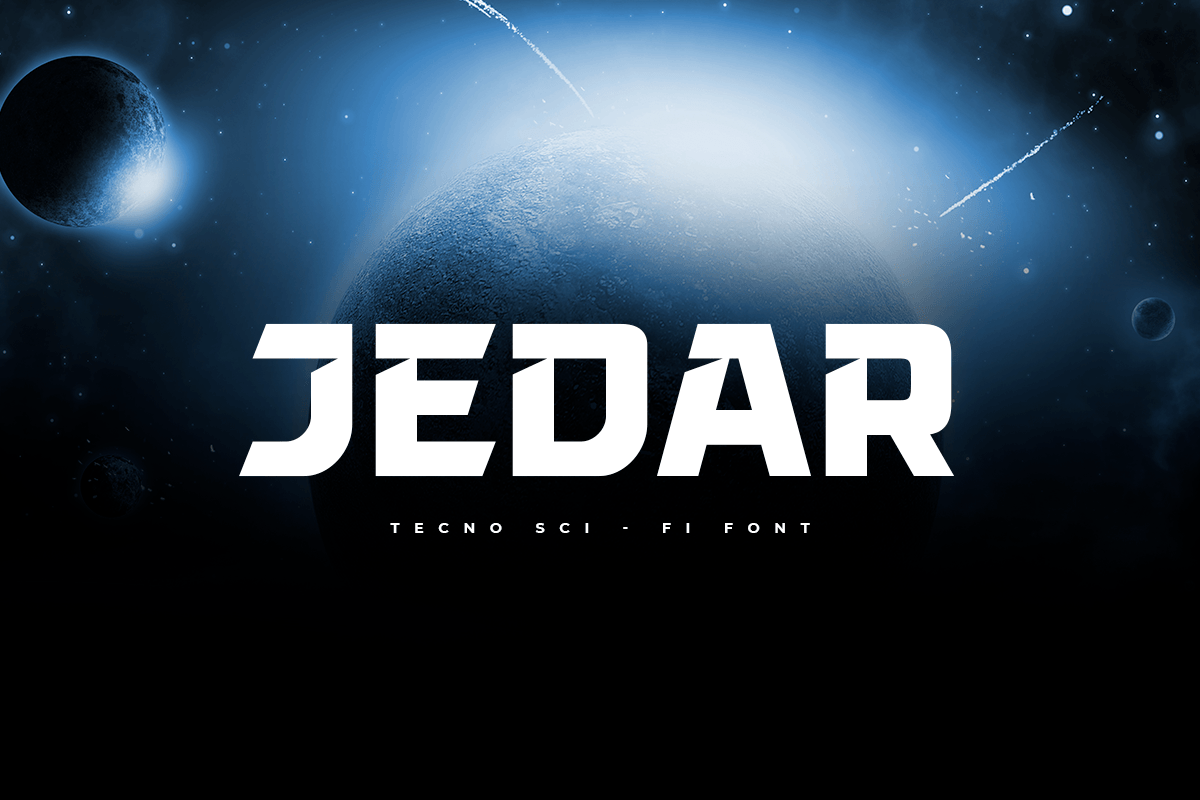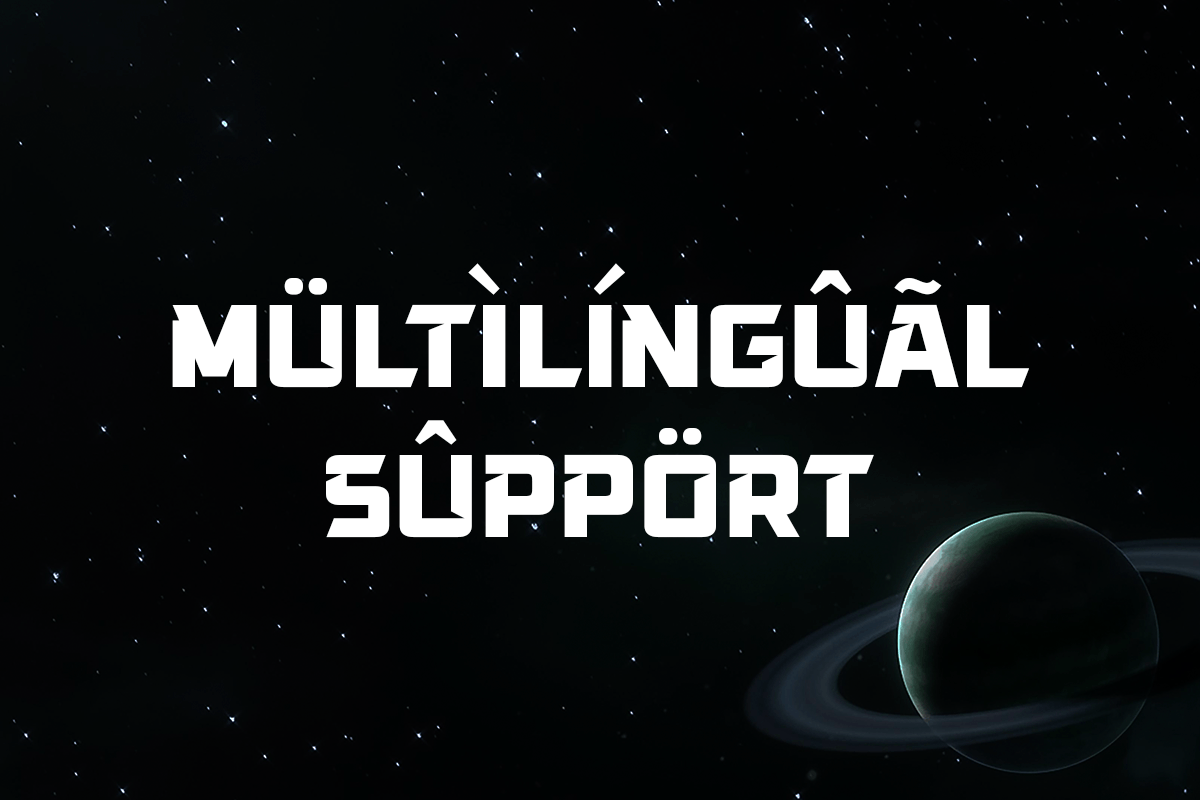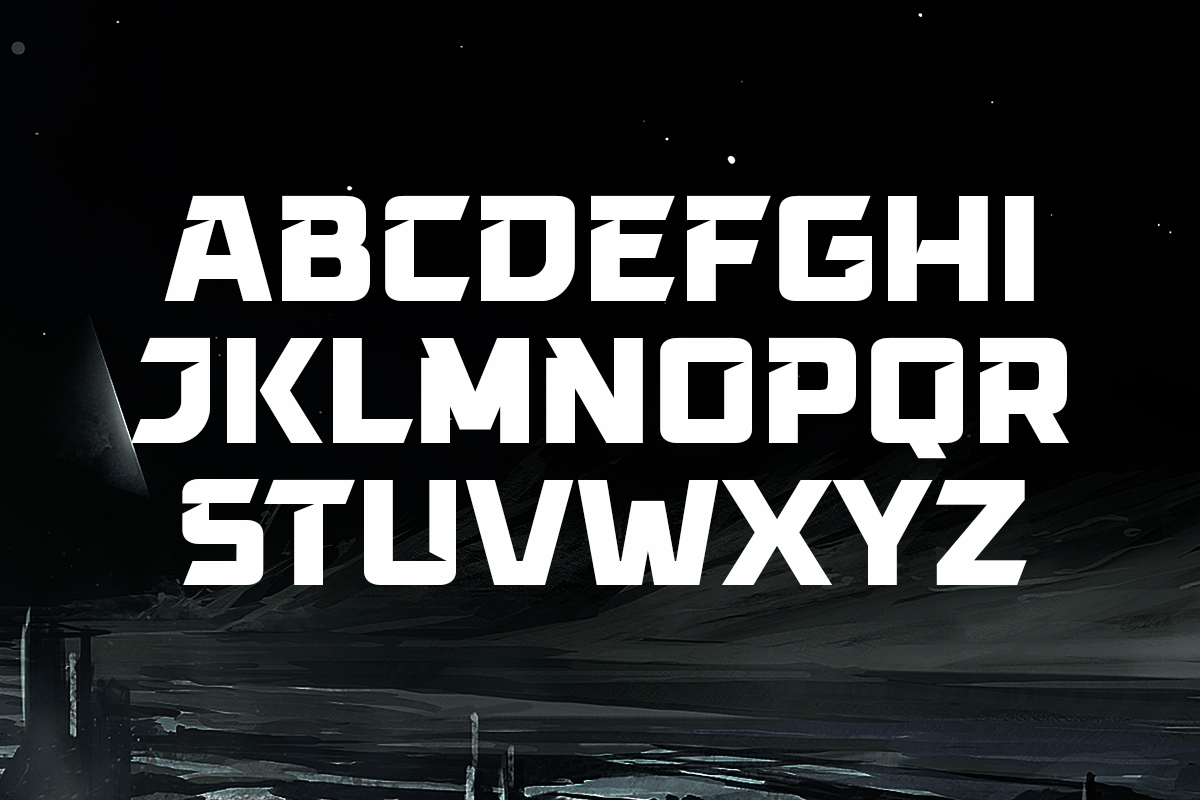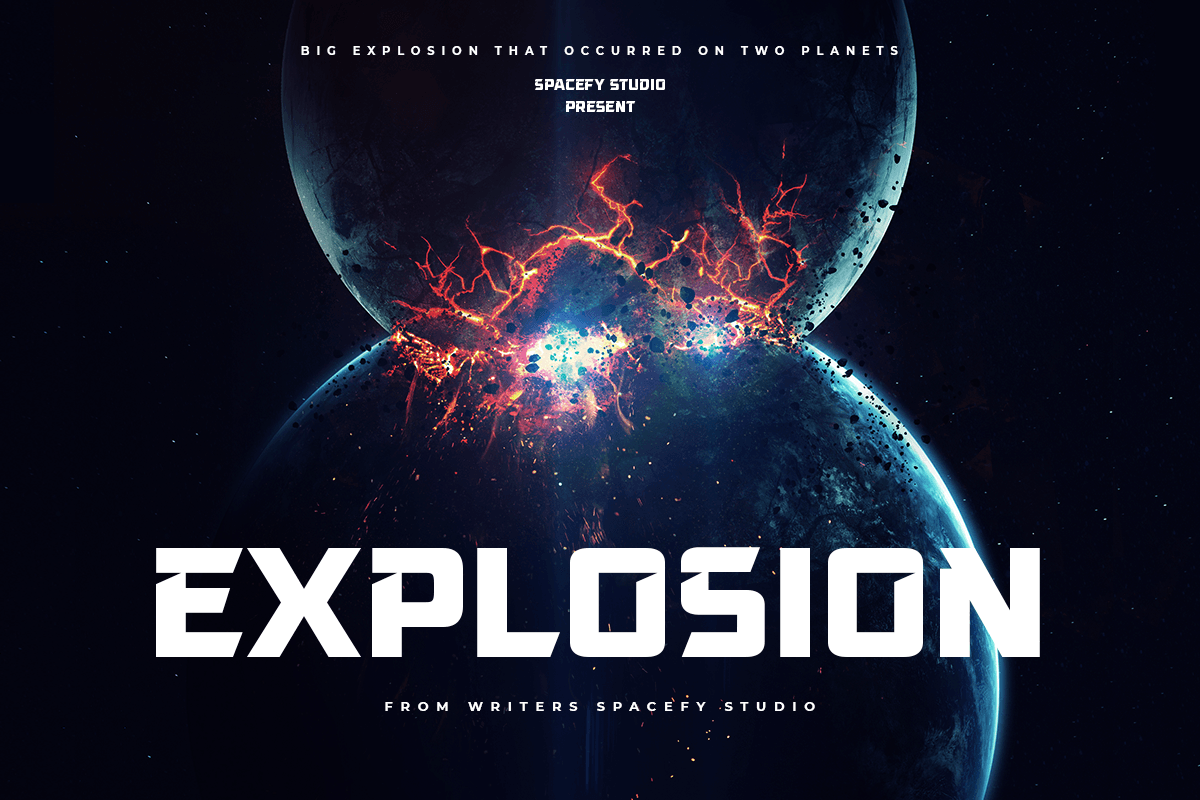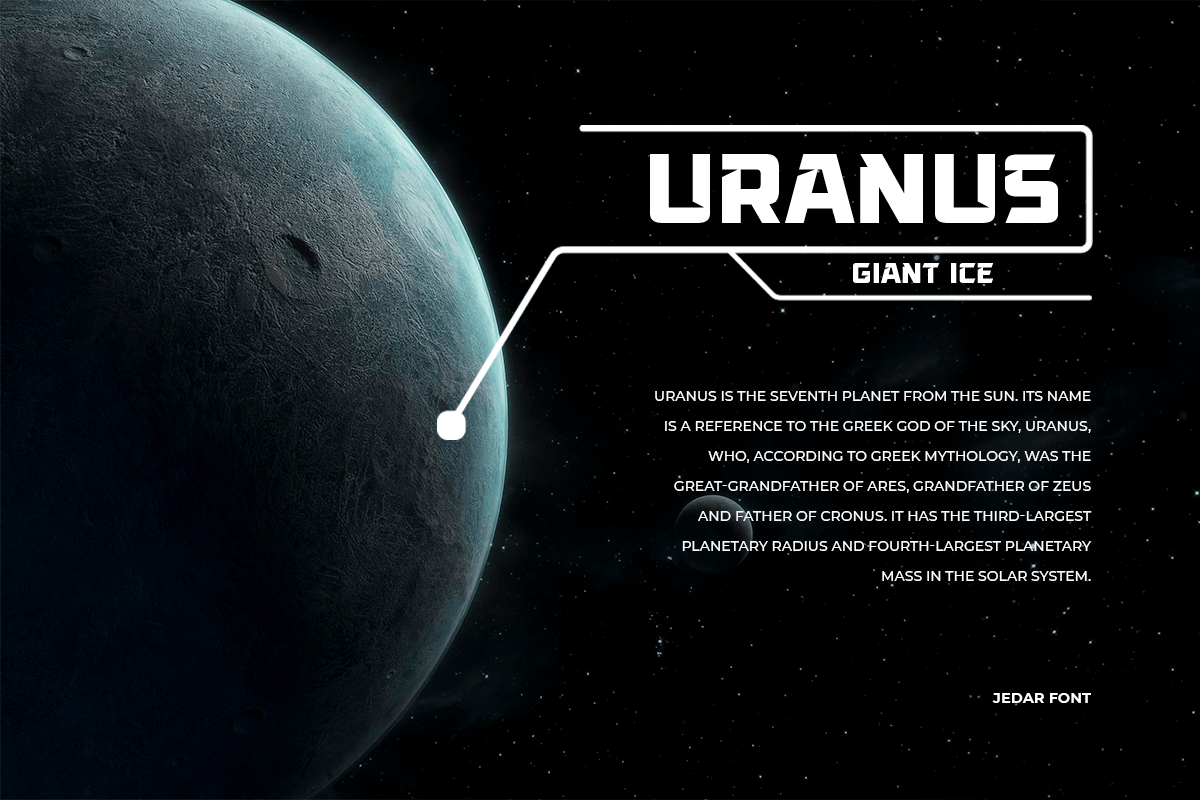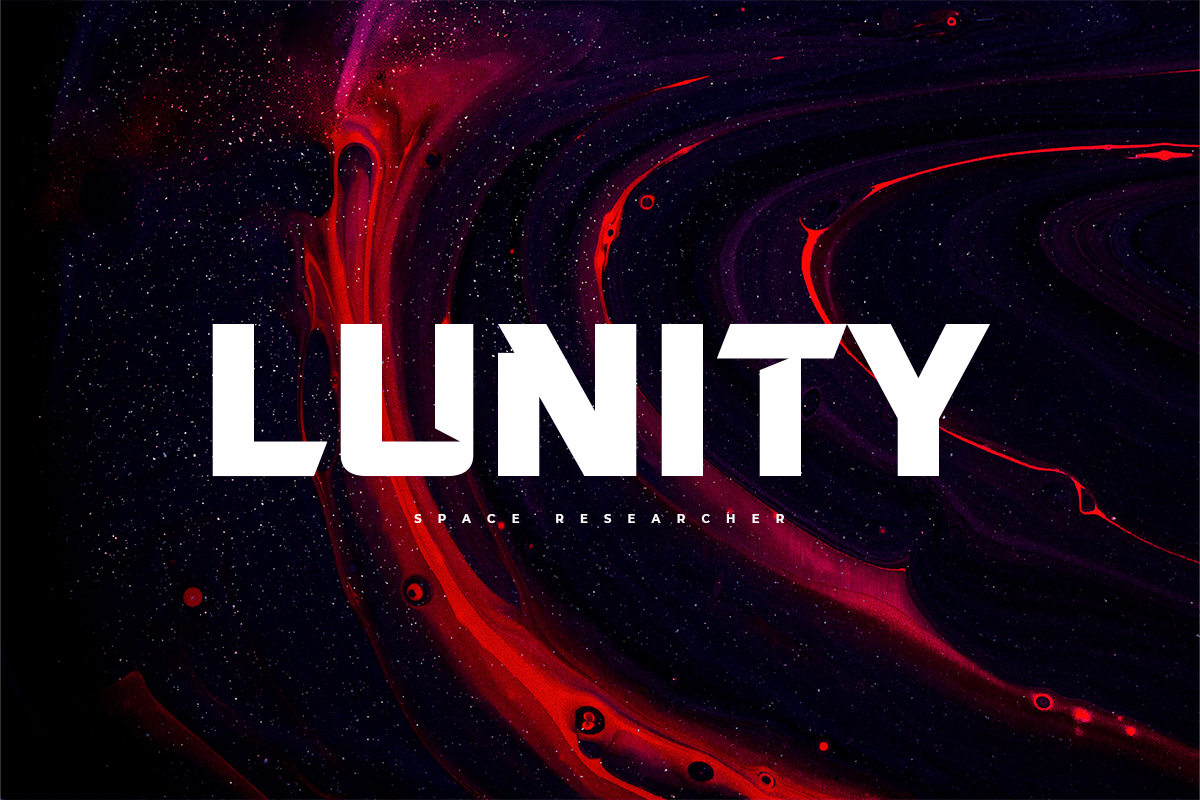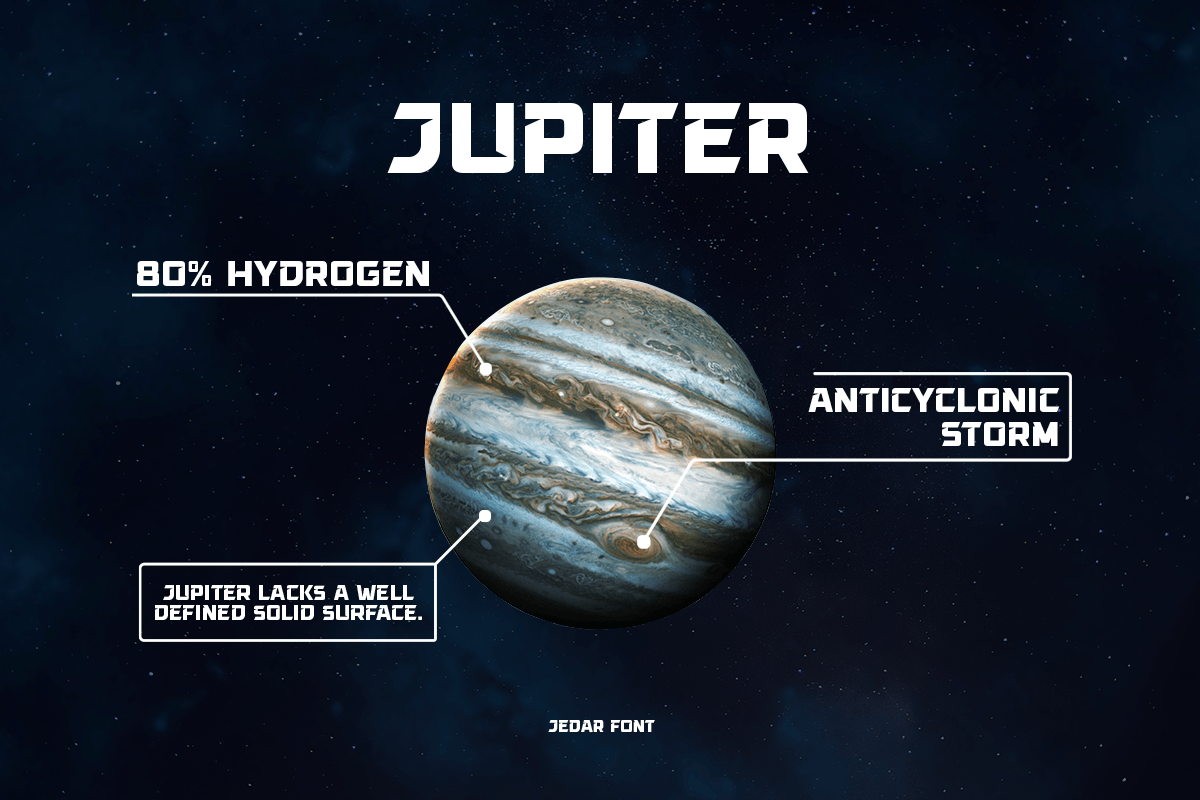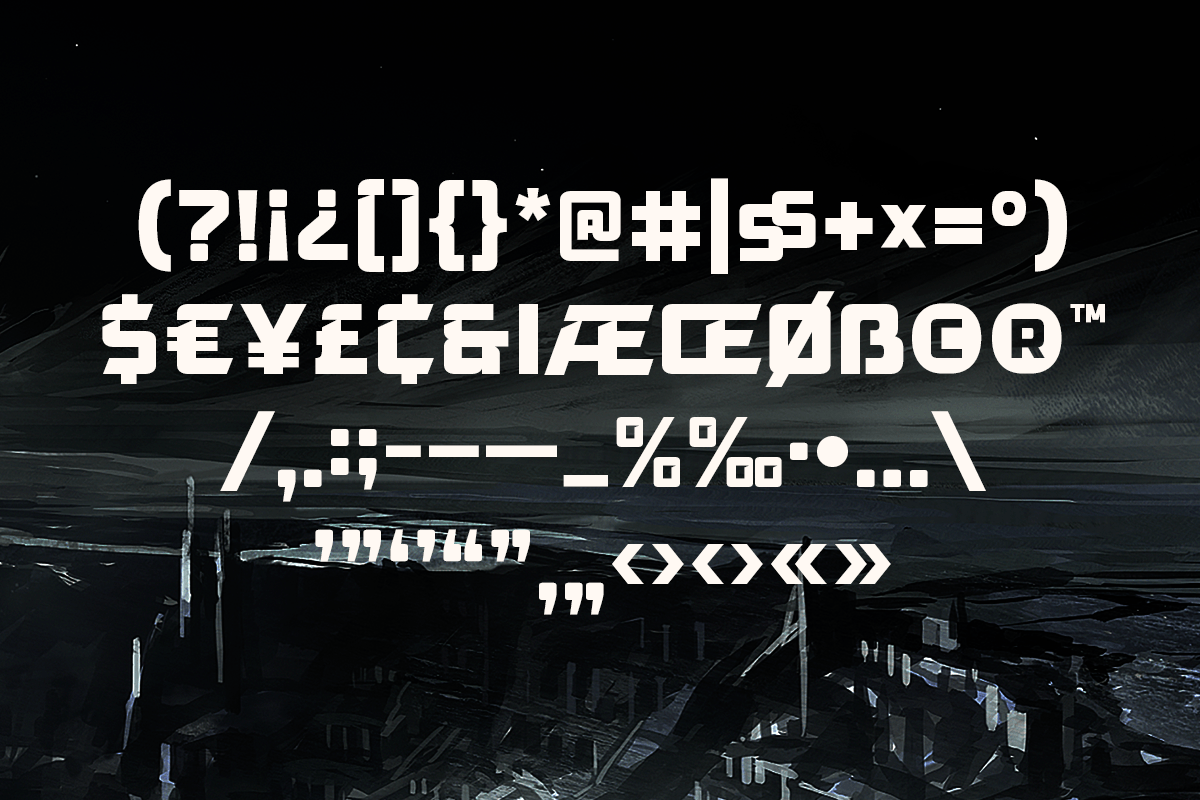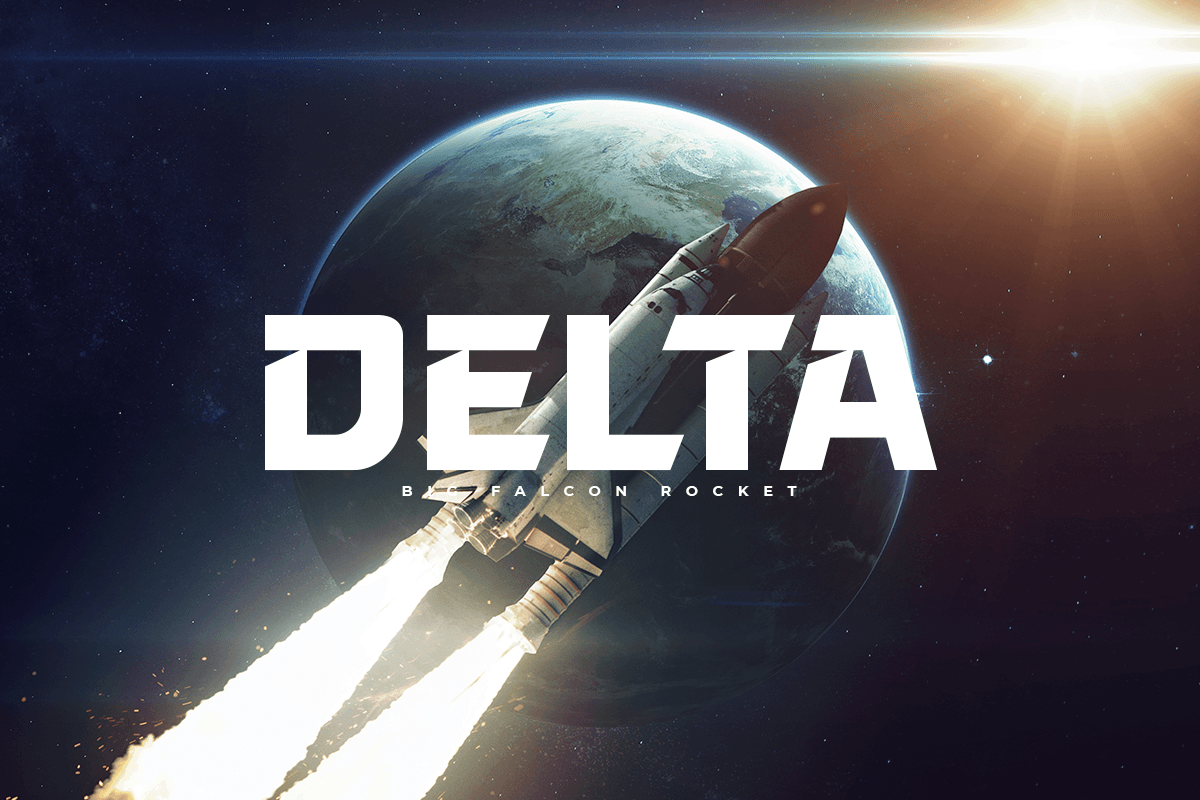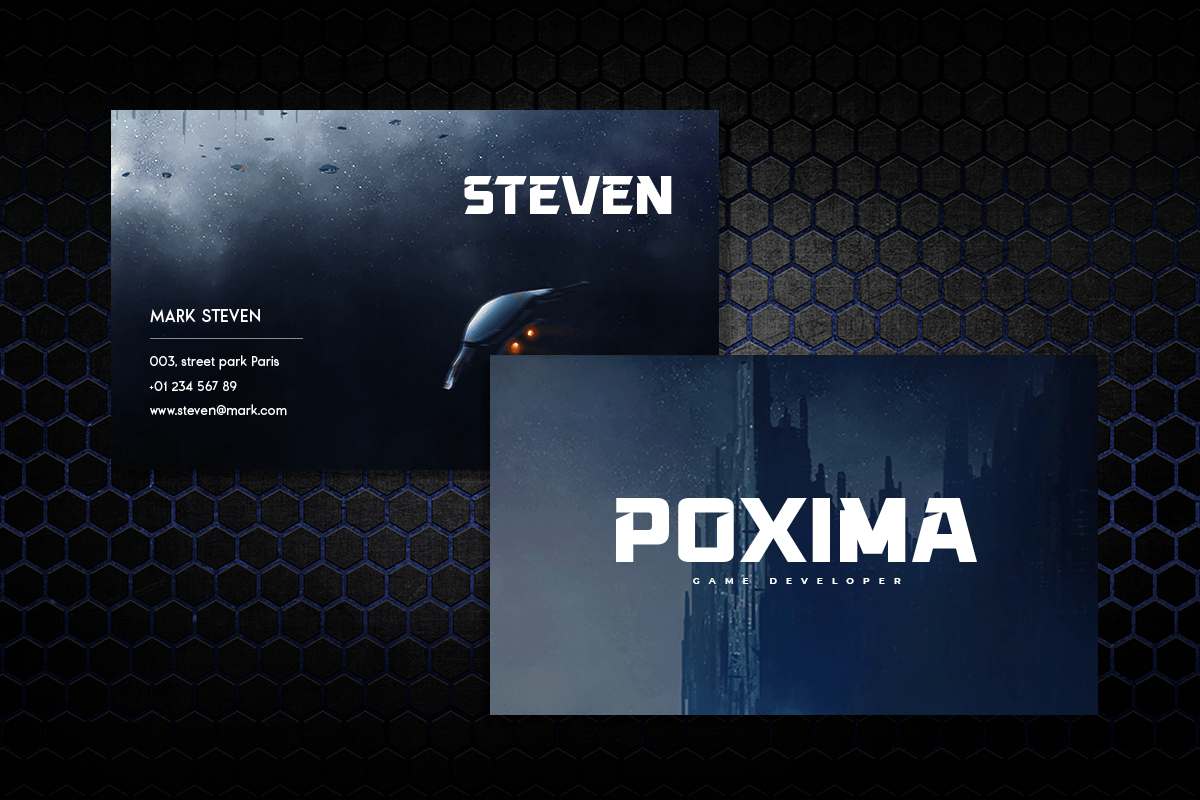
JEDAR
-Techno Sci-fi Font
JEDAR is a Techno Sci-fi font that created special for Display, Poster, and more stand out typography needs specially in Technology and Astronomical Project, with sharp characters shape that look like a symbols. It's so perfect to add your style and headline overview for Technology, Sci-fi, cryptocurrency, innovation, and futuristic theme. And specially for this font, we crafted for modern style and unique feels so enjoy to create any project that will show your main idea out.